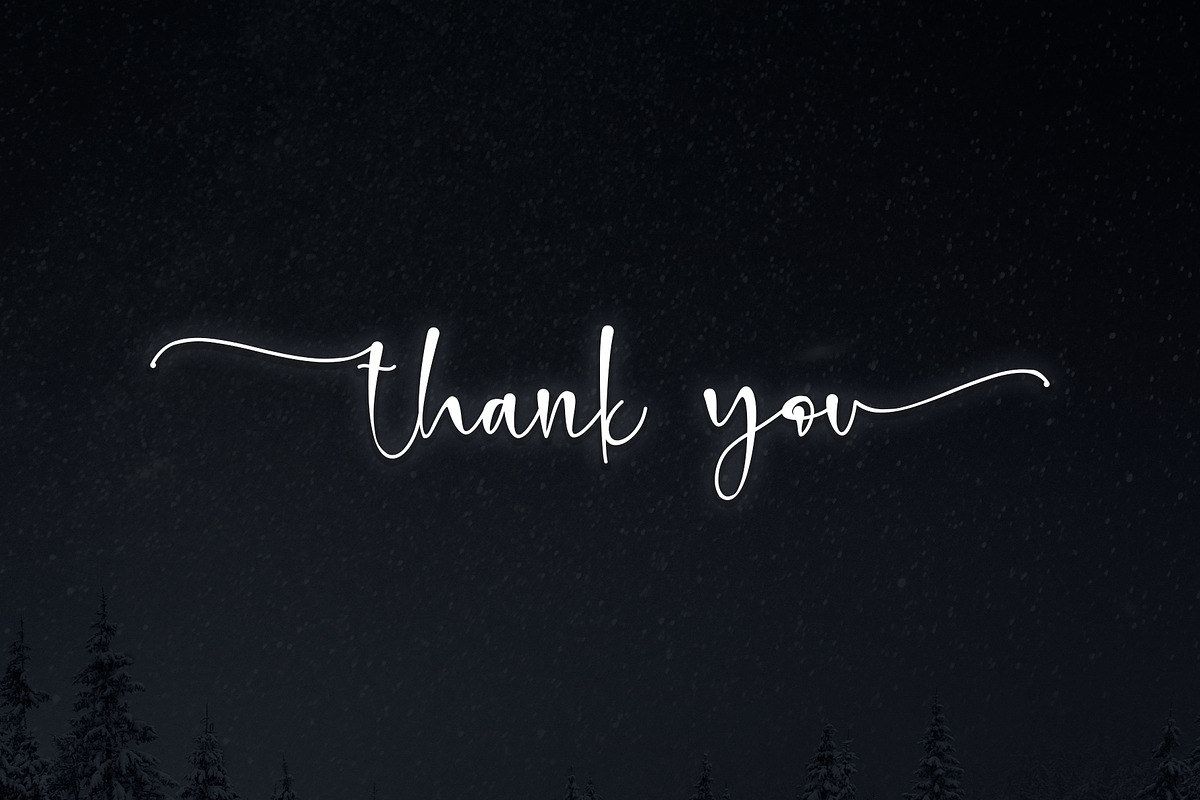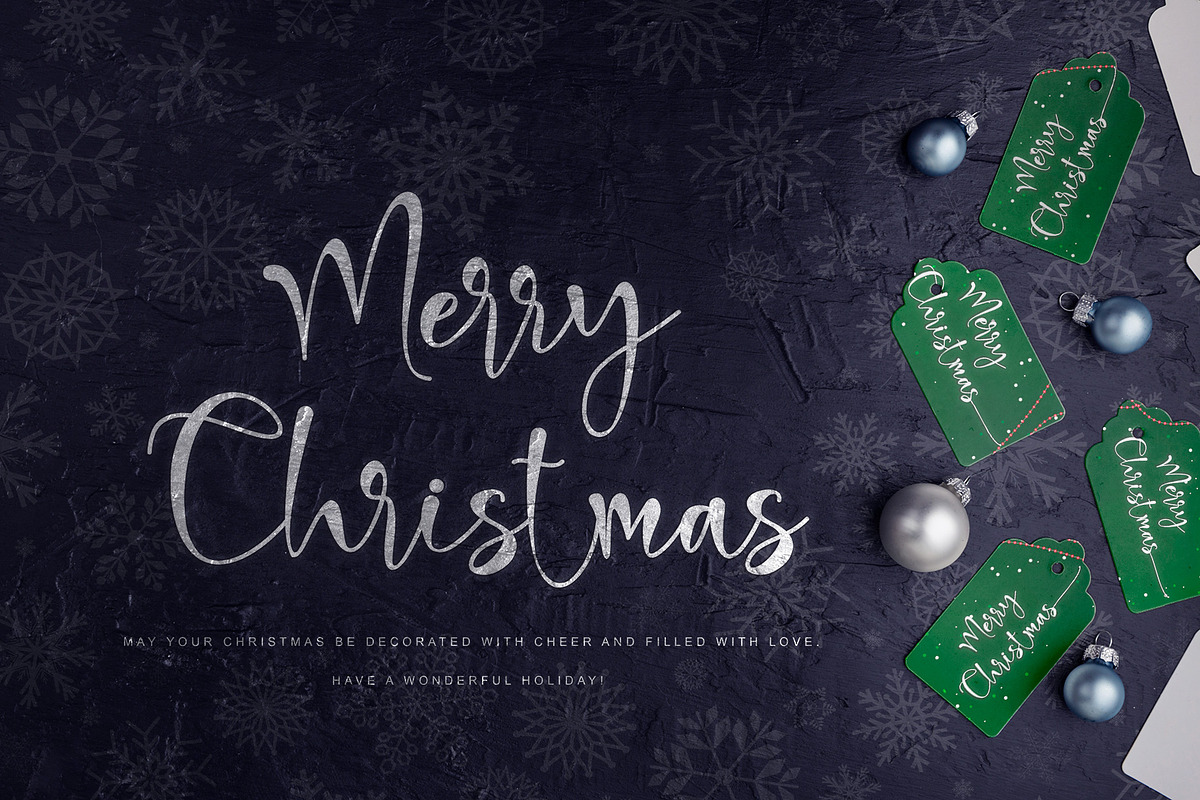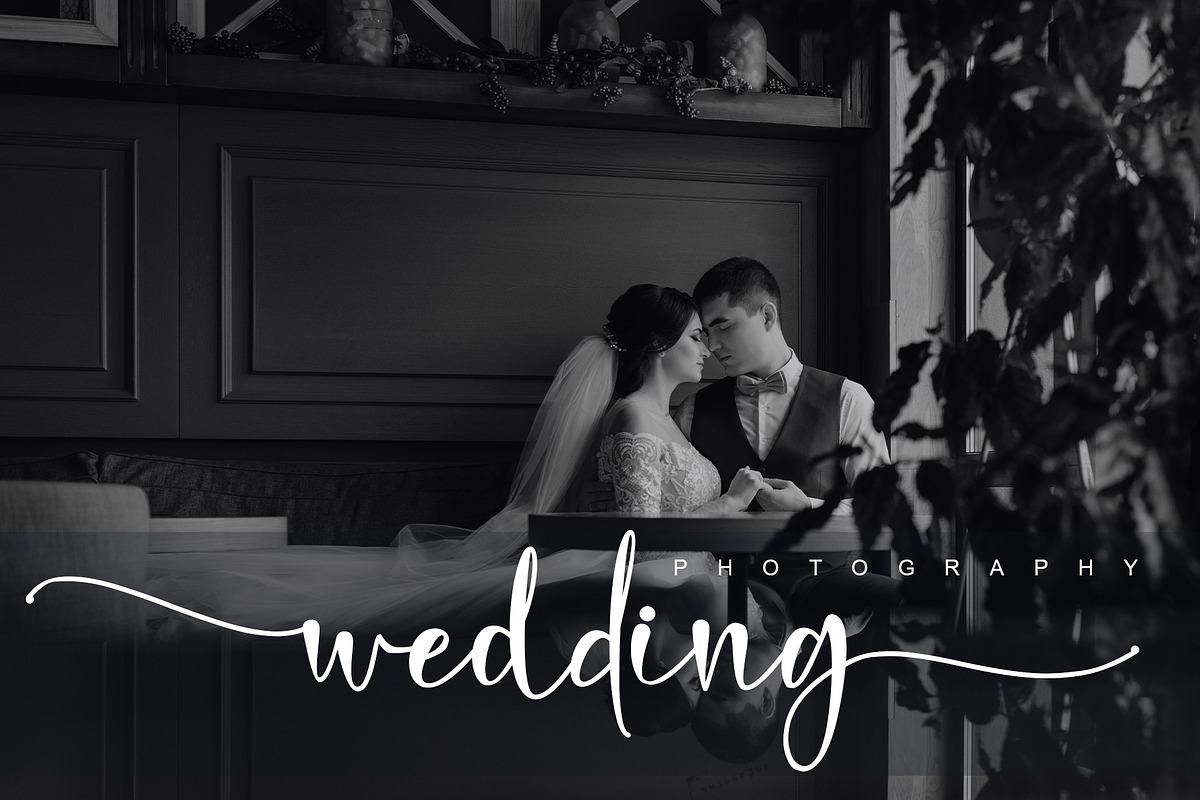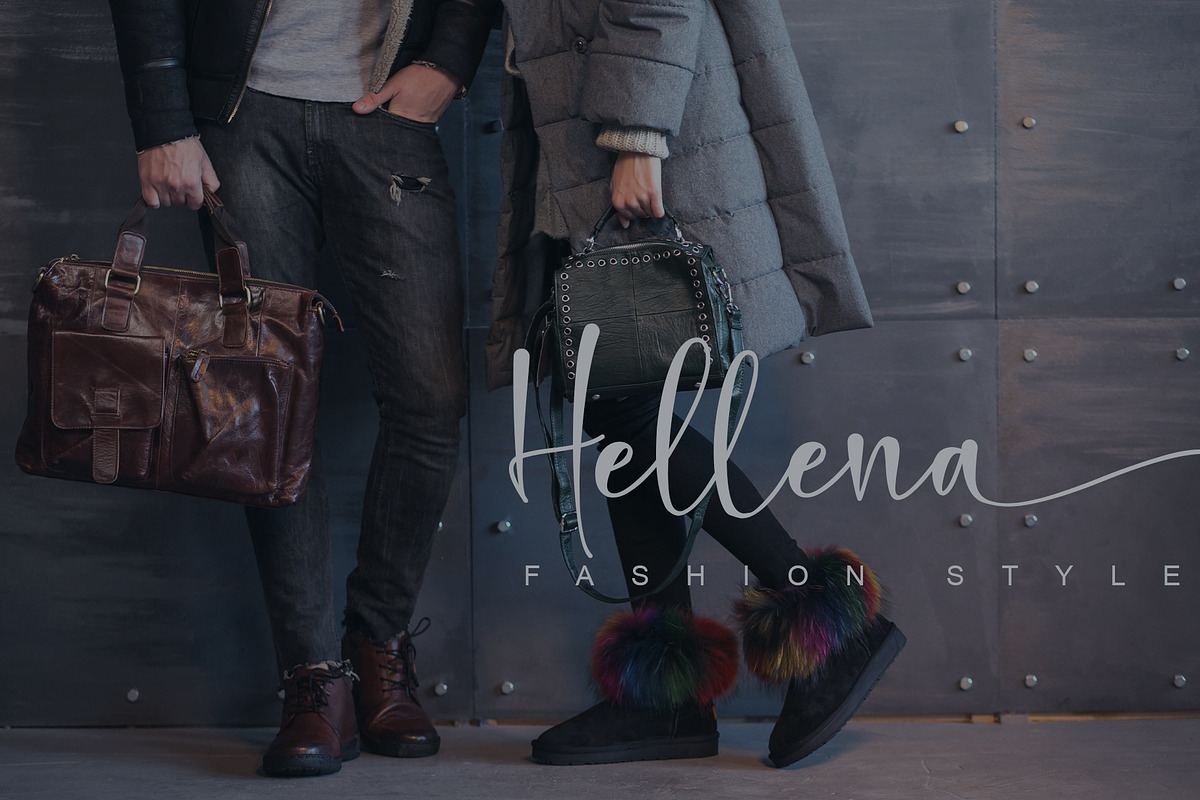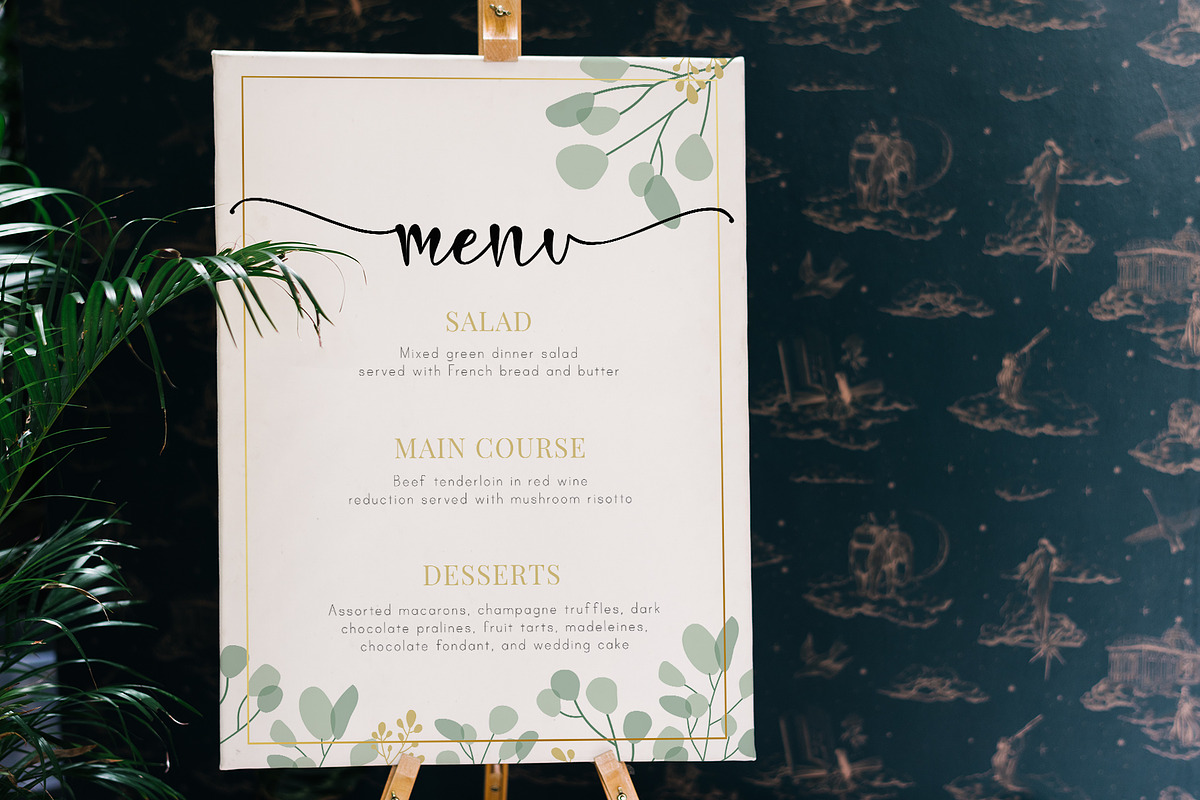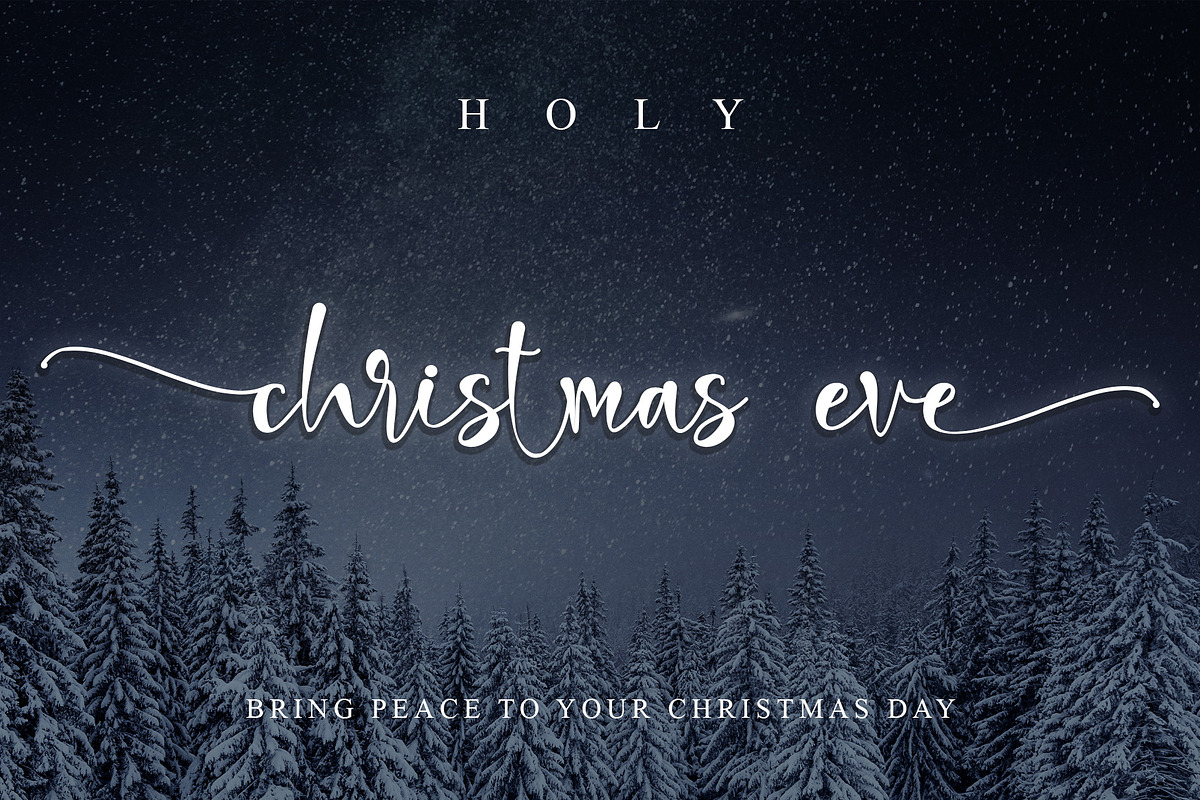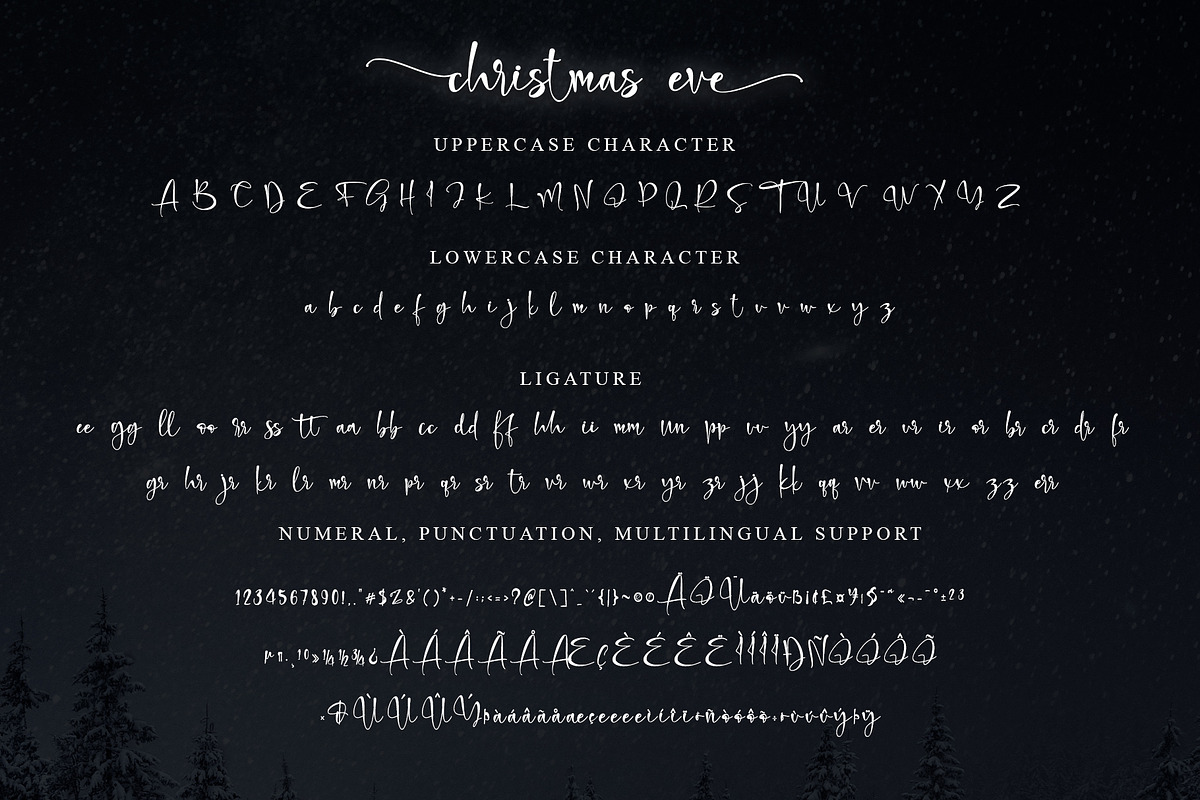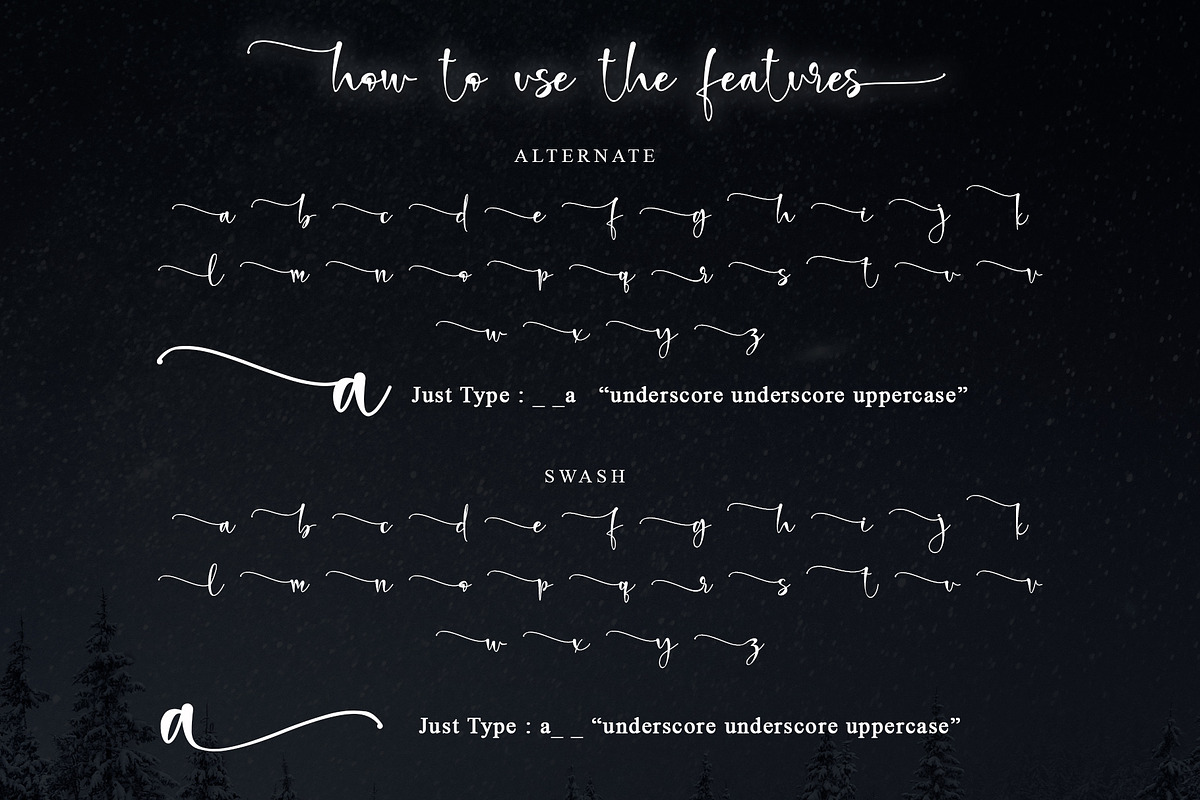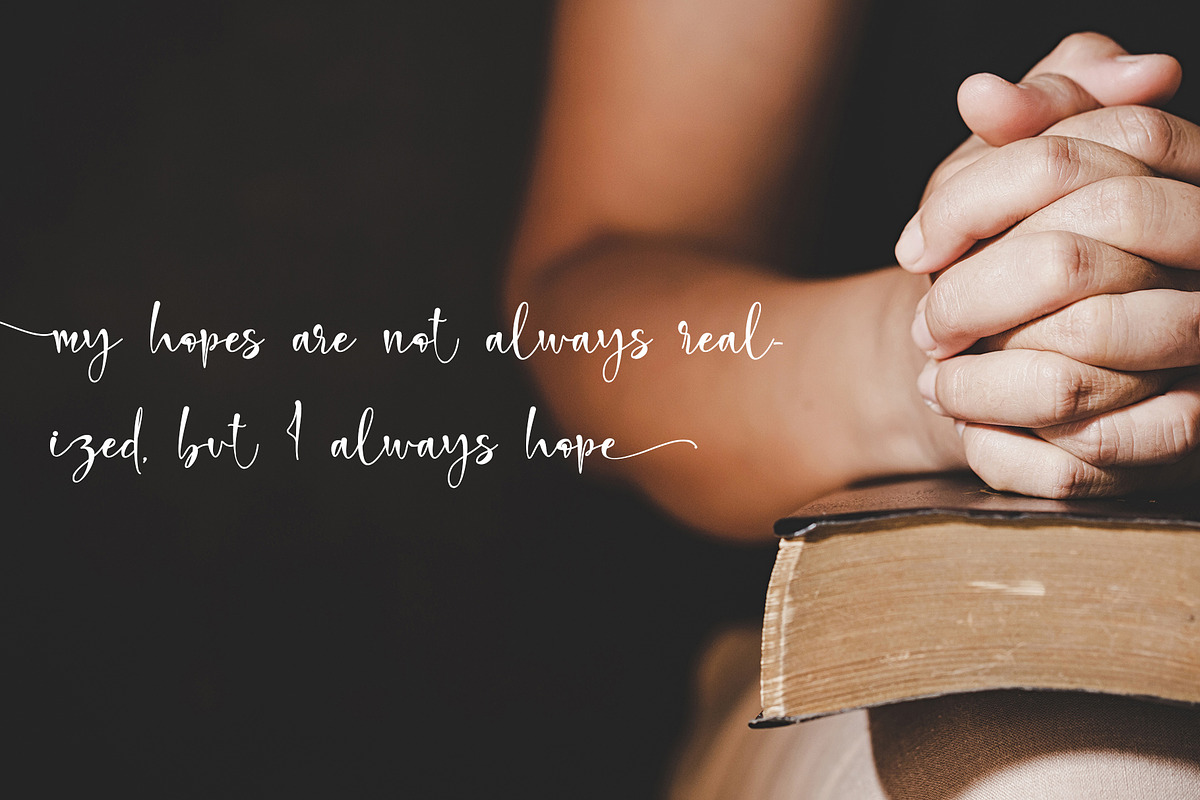
Holi Christmas Eve
Holy Christmas Eve is a chic and modern calligraphy font. It is ideal for crafting, branding, greeting cards, and for adding a joyful touch to your designs! It is PUA encoded which means you can access all of the glyphs and swashes with ease! These alternate and swash features are also designed to be easy to use in Silhouette software. It features a varying baseline, smooth lines, gorgeous glyphs, and stunning alternates. Add it to your designs and make them come alive!
- Many features: Alternate, Swash, and Ligature
- Support multilingual; ä ö ü Ä Ö Ü ß ¿ ¡